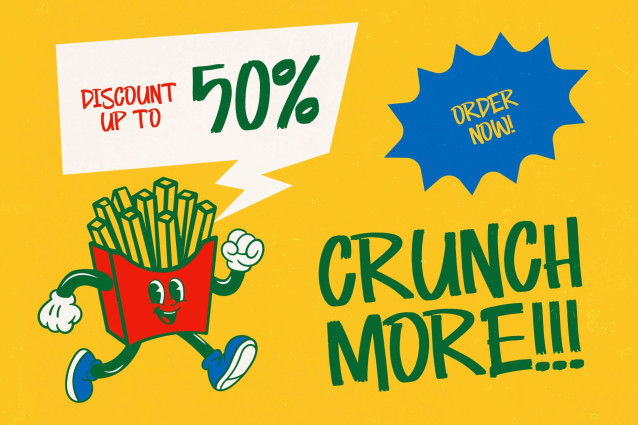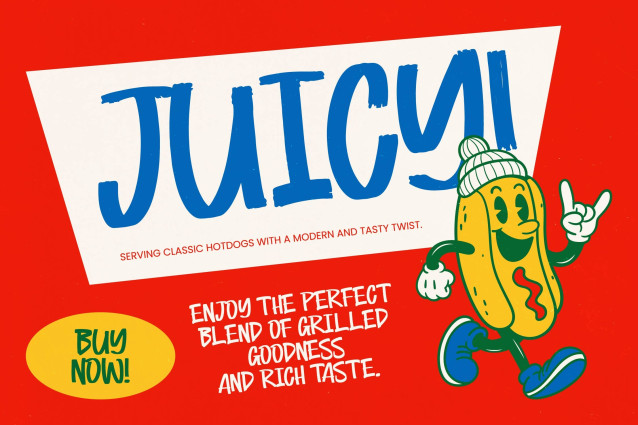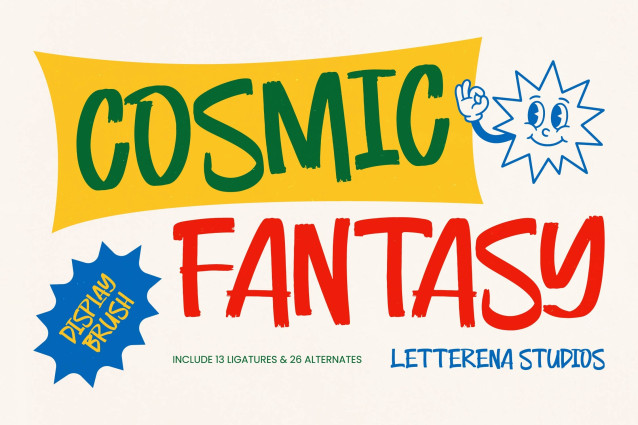
Cosmic Fantasy – Display Brush is a masterclass in organic texture and dynamic movement. Designed to capture the essence of hand-painted artistry, this expressive brush font offers a bold aesthetic that instantly grabs attention. Its irregular strokes and handcrafted charm provide a sense of authenticity that is often missing from purely digital designs, making it a standout choice for any modern project.
Unlock limitless design potential across a variety of high-impact mediums. This typeface is the perfect choice for merchandise design, vibrant posters, and social media graphics. Cosmic Fantasy – Display Brush excels in streetwear branding, event promotion, and creative packaging, where a strong personality is paramount. It is also perfect for children’s book covers or editorial headlines that require a playful yet professional touch.